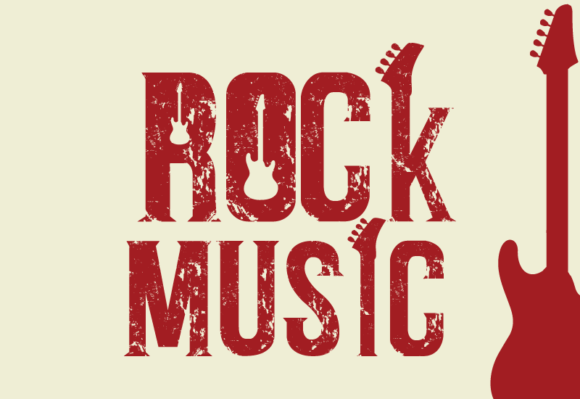
Rock Music Font
Unveiling Rock Music, a meticulously fashioned decorative font. Crafted with impeccable accuracy, this font carries a minimalist grace, as airy and smooth as a harmonious tune. It is the embodiment of precision and elegance, delicately intertwined to set a rhythm to your texts. Immerse in the melody of words with Rock Music, a font that doesn’t just speak, it sings.